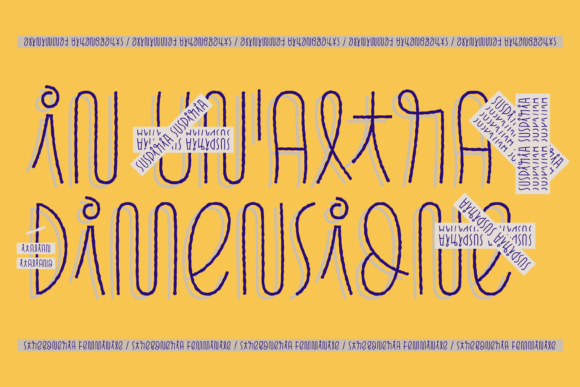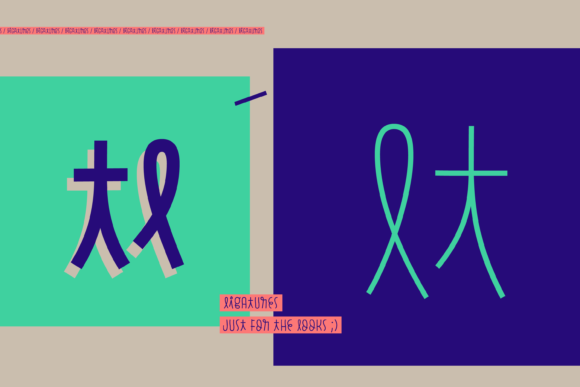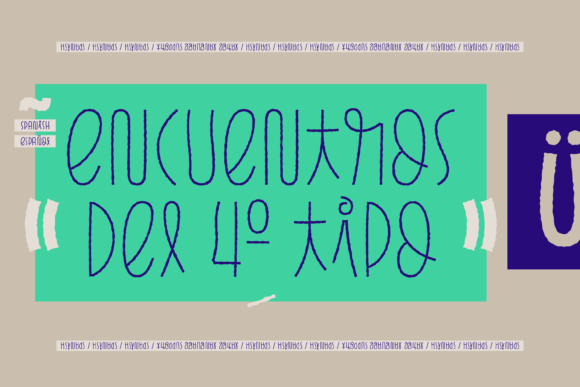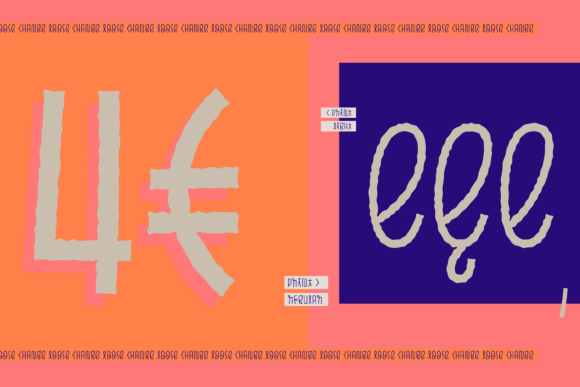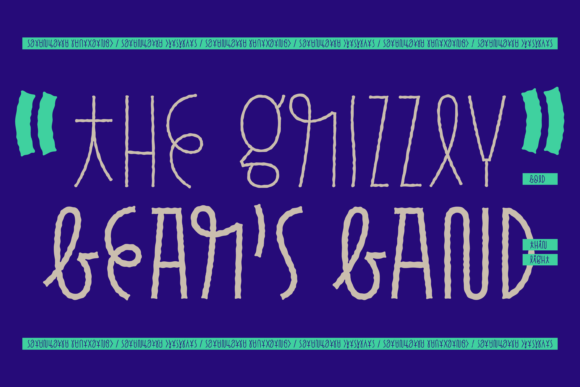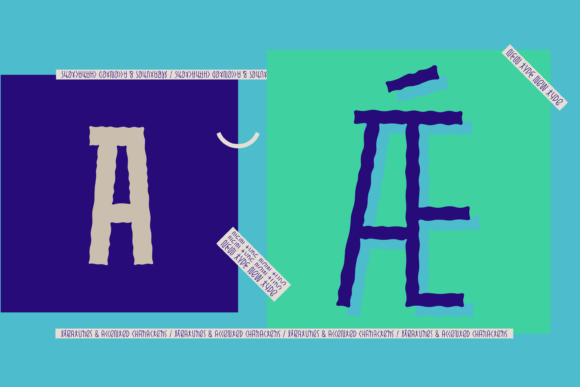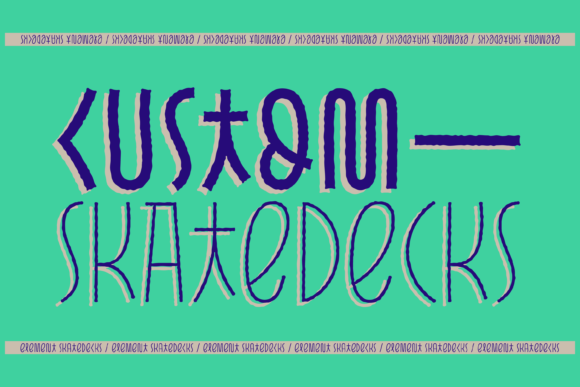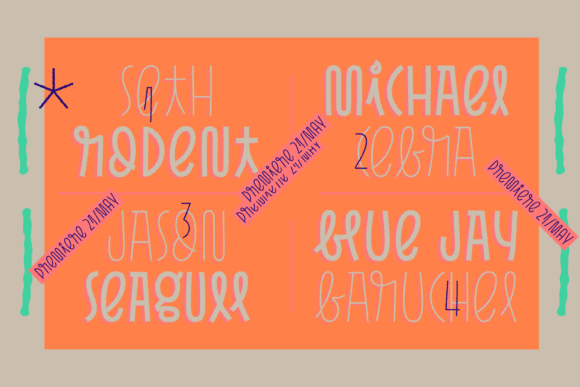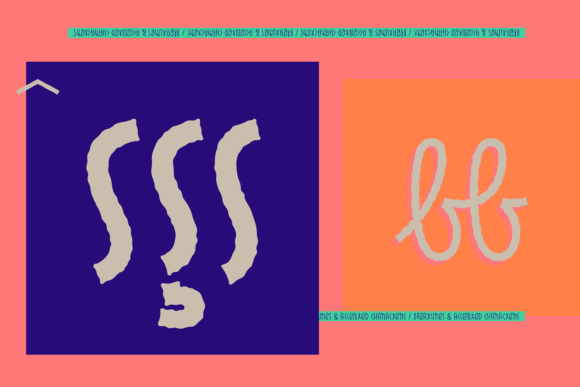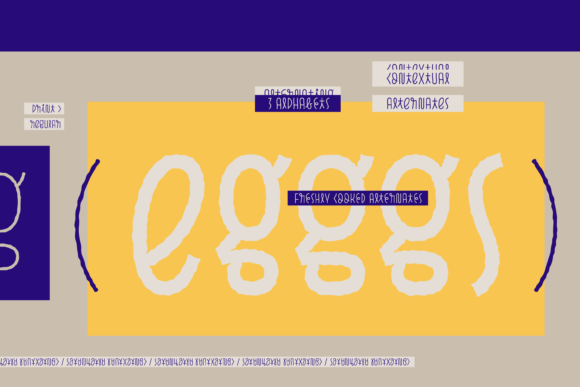
Pasto Font
About Pasto Font
Pasto is a uniquely fun and kooky handwritten font with an incredible charm. Use it to turn any design project into an eye catcher!